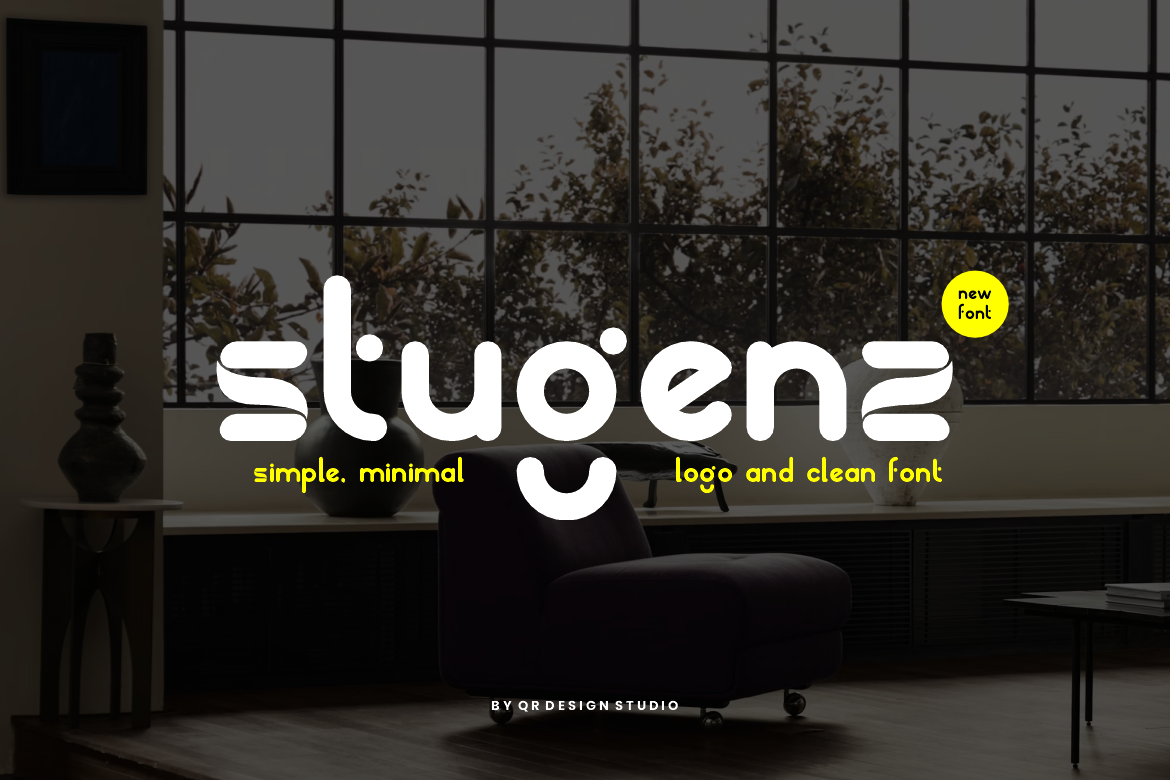
Stugenz - Minimal & Rounded Font
Stugenz Font is a bold and authentic display font. The font is suitable for any branding project like poster, logo, sport, and many more. Outstanding in a wide range of contexts.